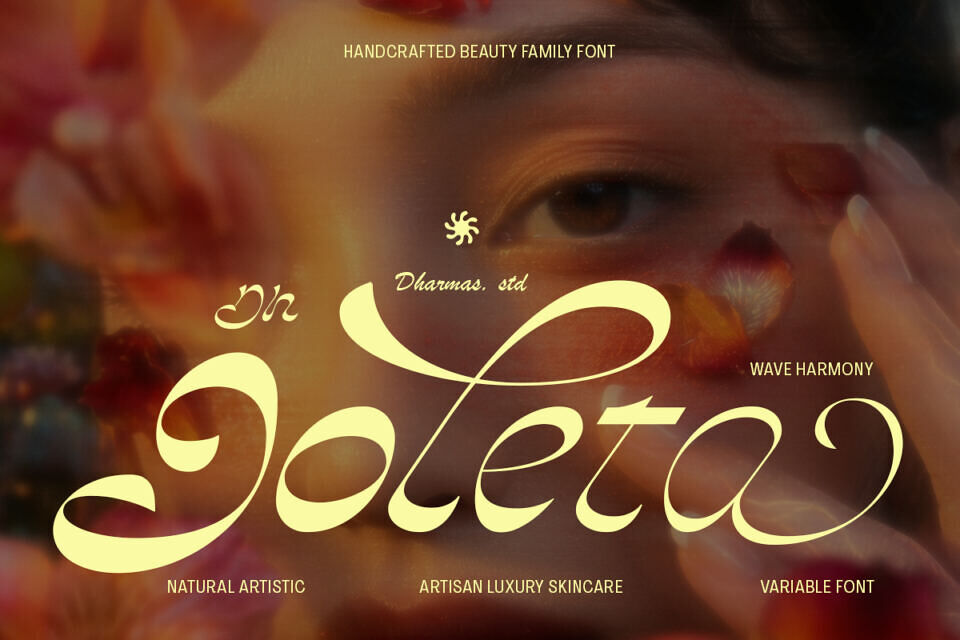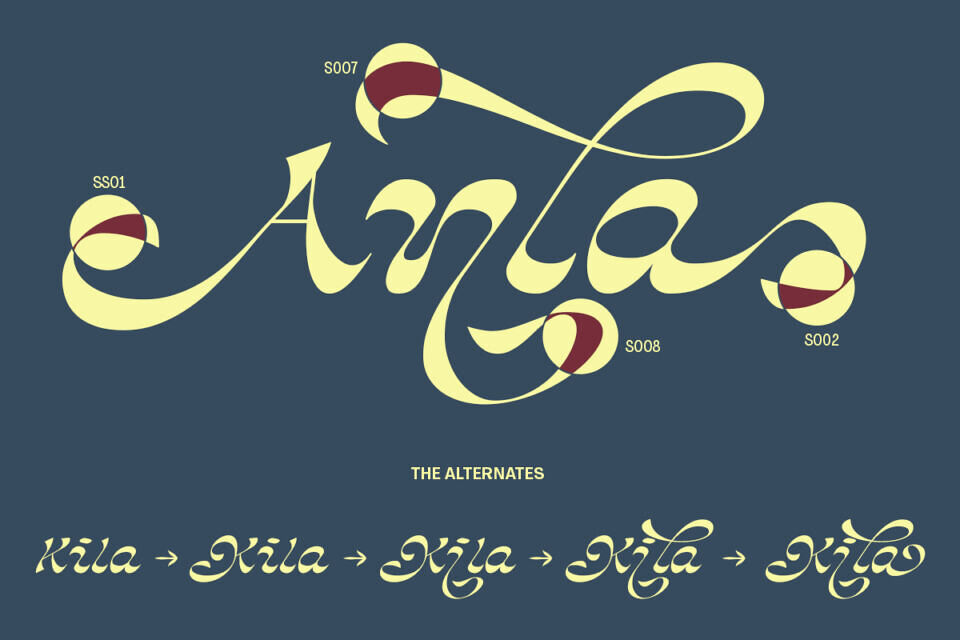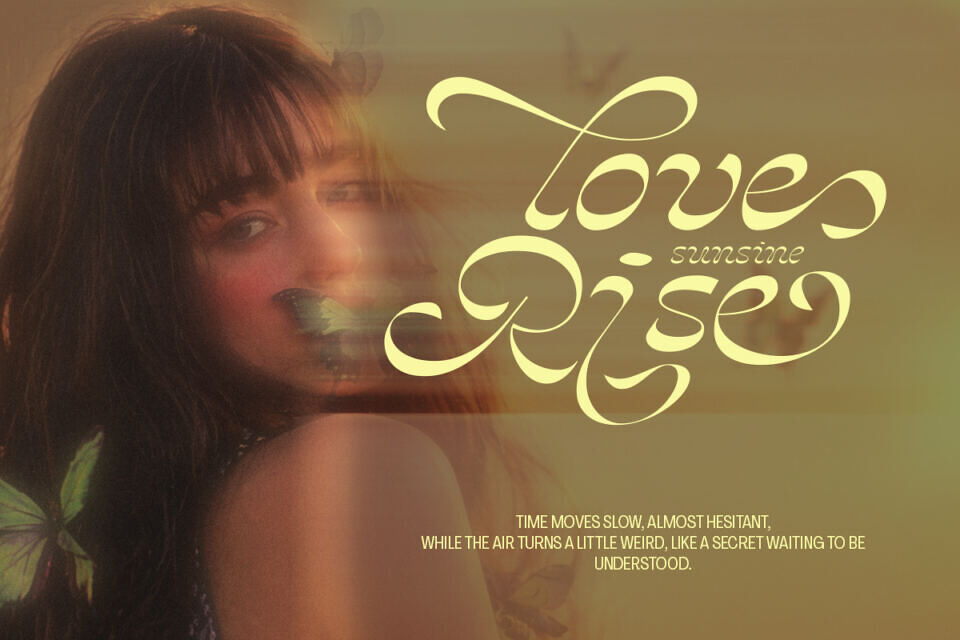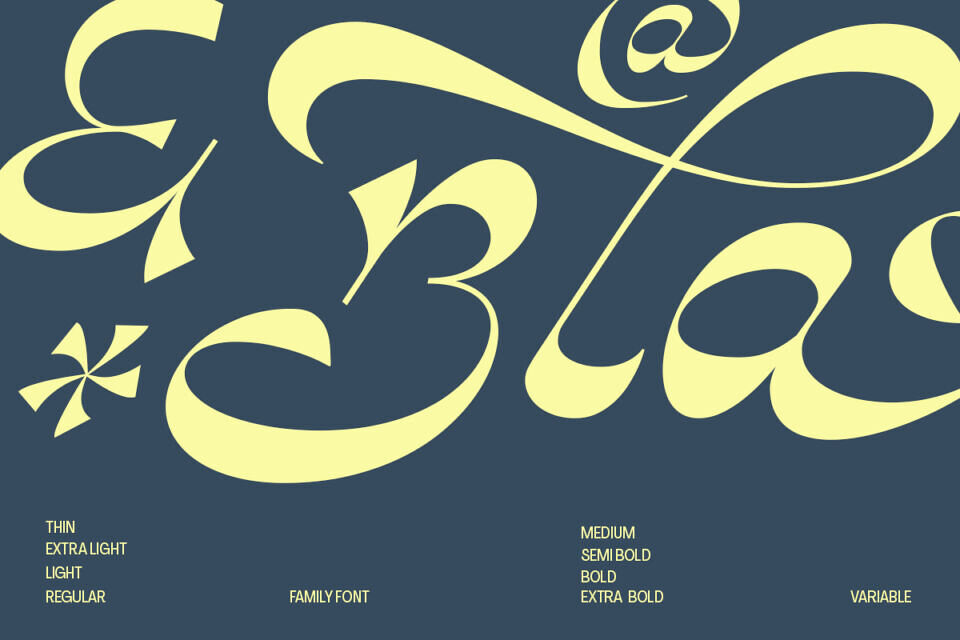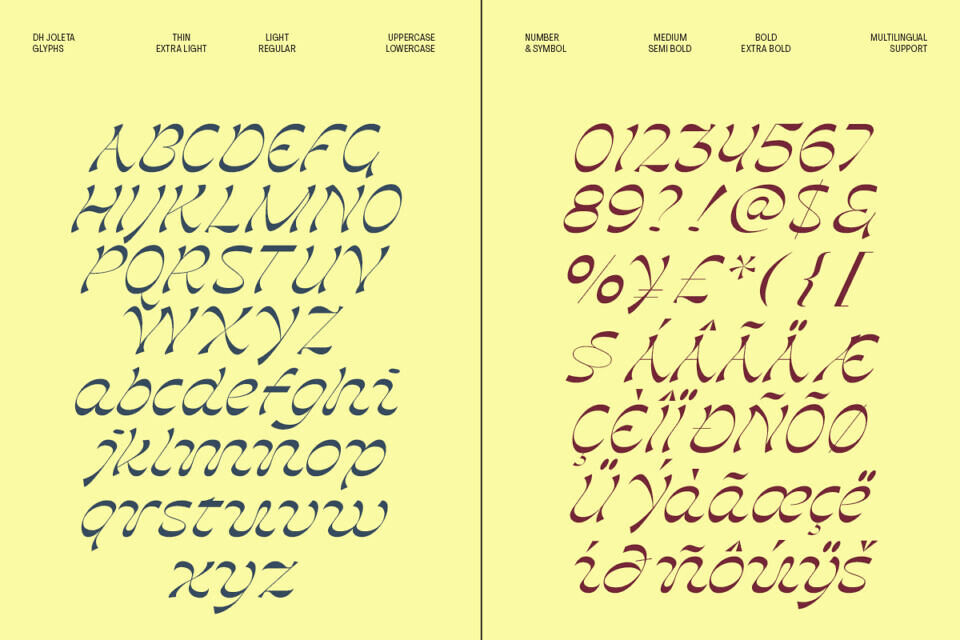
Dh Joleta is a handcrafted luxury beauty font family inspired by soft femininity, flowing butterfly wings, and elegant artistic calligraphy. Designed with graceful curves, expressive swashes, and refined high-contrast strokes, this typeface creates a dreamy and sophisticated atmosphere that feels both modern and timeless.
Perfect for beauty branding, skincare packaging, fashion editorials, perfume labels, invitations, boutique identities, and feminine social media designs.